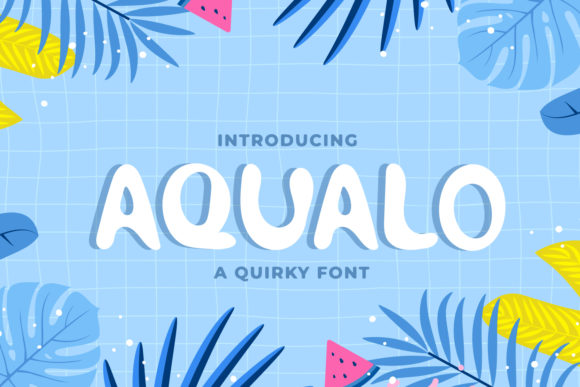
Aqualo Font
**Introducing Aqualo Font: Your Creative Haven for Exceptional Typography**
Prepare to be swept away by Aqualo, an enchanting display font that will ignite your imagination and transform your designs into breathtaking masterpieces. Crafted with meticulous care by the renowned OKEVECTOR, Aqualo is a true gem that embodies the perfect harmony of charm and versatility.
With its playful curves and captivating personality, Aqualo exudes an irresistible friendliness that draws you in. Its down-to-earth demeanor makes it a delight to read, offering unmatched clarity and readability. But don't let its simplicity fool you—Aqualo possesses a hidden depth that unlocks endless creative possibilities.
Immerse yourself in the boundless versatility of Aqualo, a font that effortlessly adapts to any project you envision. Whether you're crafting captivating social media posts, designing eye-catching logos, or creating stunning packaging, Aqualo will become your trusted companion. Its ability to seamlessly blend with various styles and themes ensures that your creations will always stand out from the crowd.
Unleash your imagination and let Aqualo guide you through a world of typographic wonders. Its playful spirit will spark creativity within you, inspiring you to create designs that captivate and enchant your audience. With Aqualo, the possibilities are limitless.